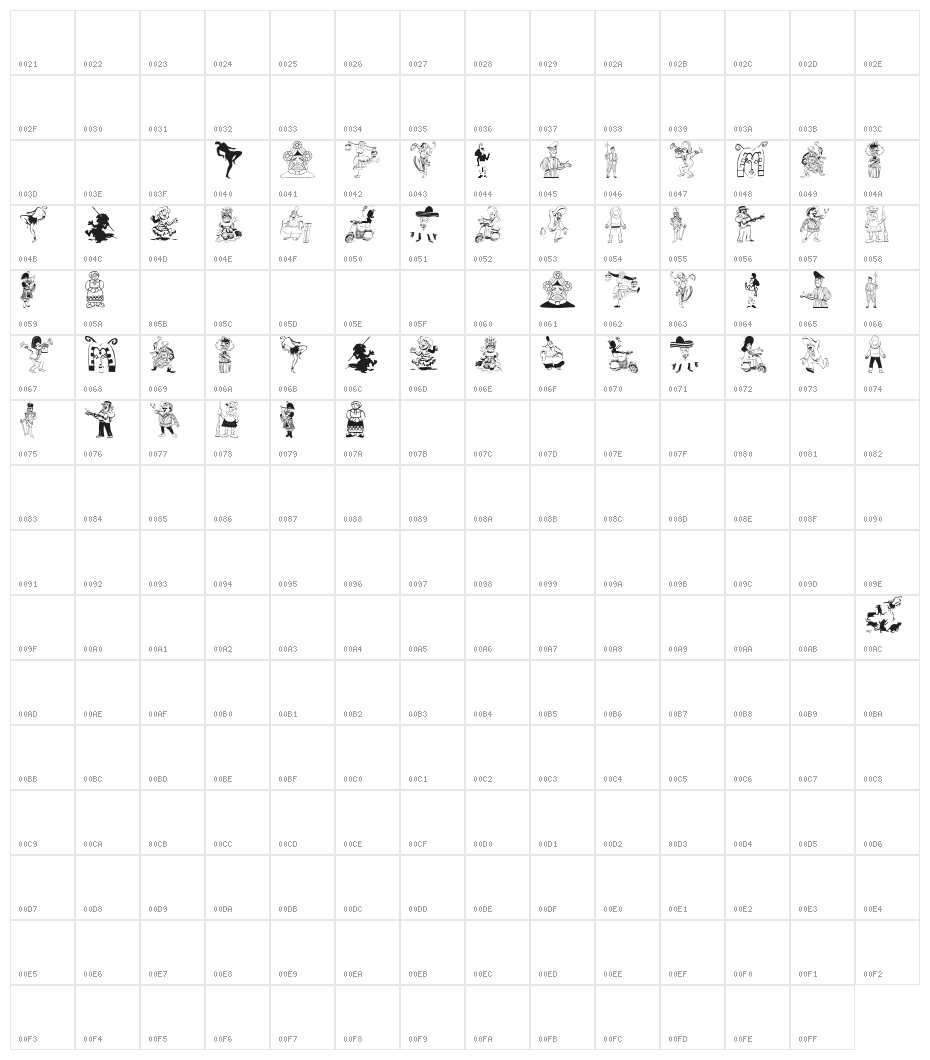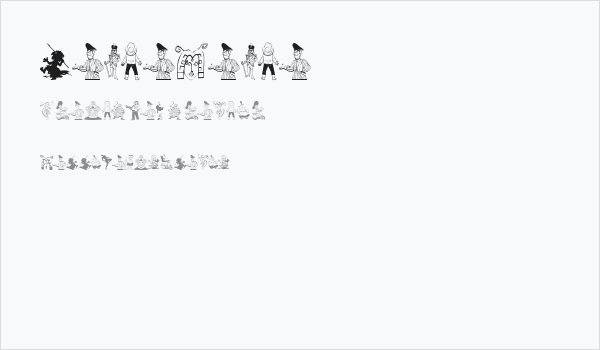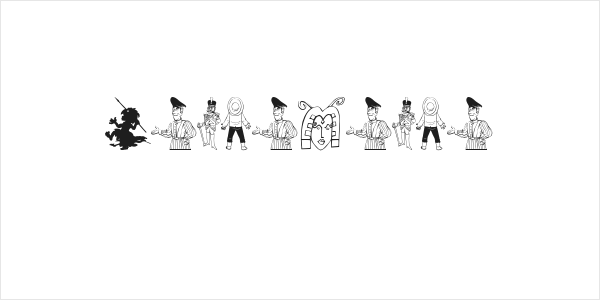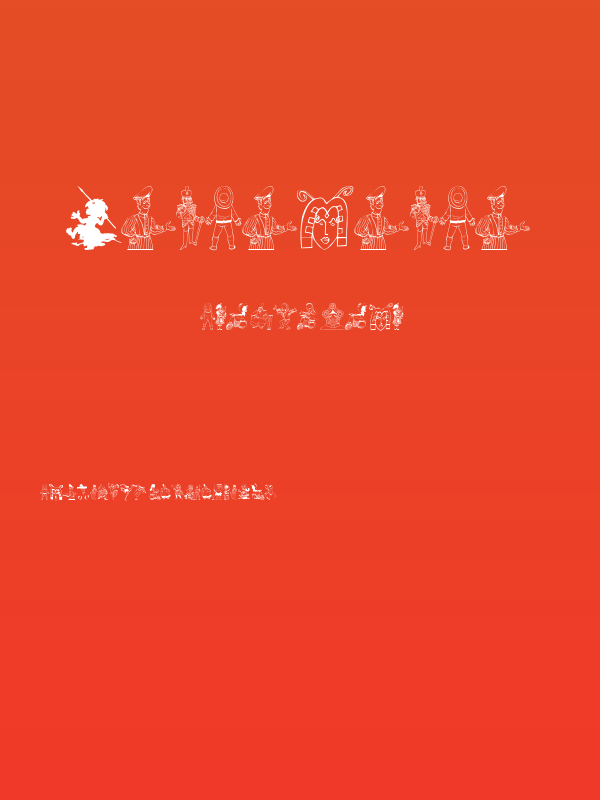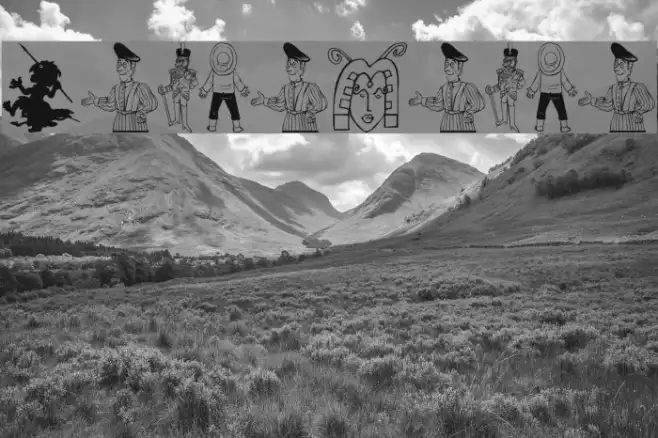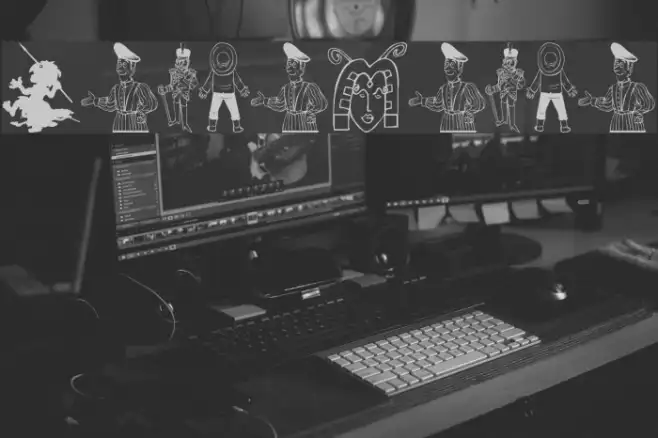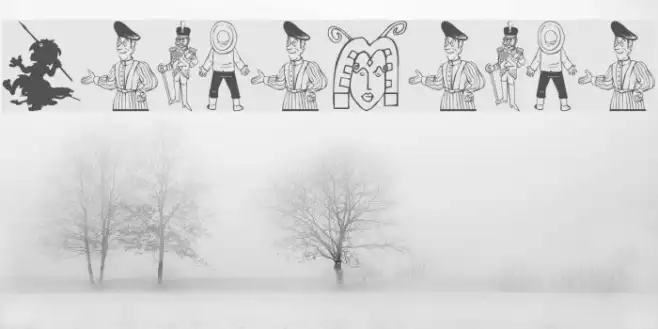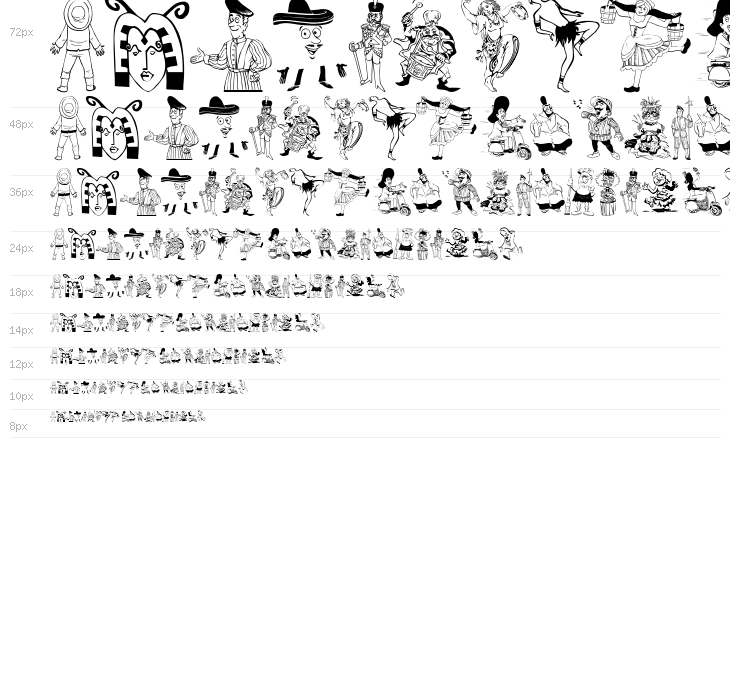
LeuteHeute Font
LeuteHeute Description
A highly decorative and playful display typeface where each character is illustrated as a unique cartoon figure, incorporating a variety of costumes, poses, and whimsical details. The glyphs are bold, with consistent stroke thickness and a hand-drawn, comic style.
| Overall Style | Decorative, Playful, Whimsical |
| Use Case | Headlines, Posters, Logos, Themed Graphics |
| Proposed Projects | Children’s books, party invitations, event posters, themed branding, playful packaging. |